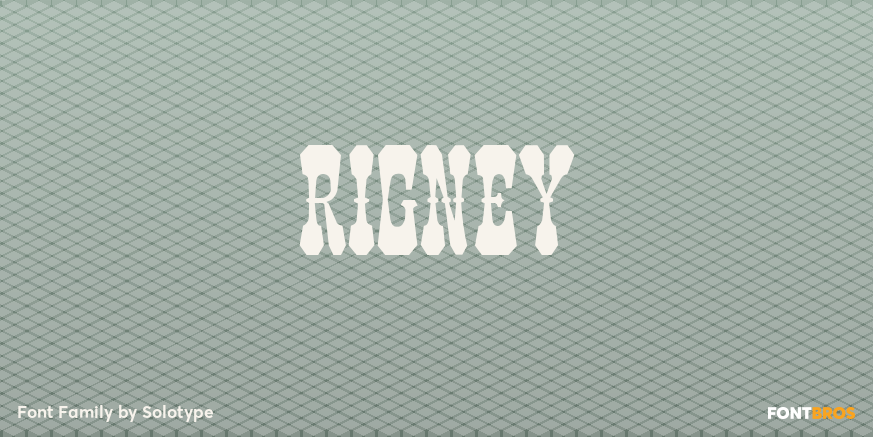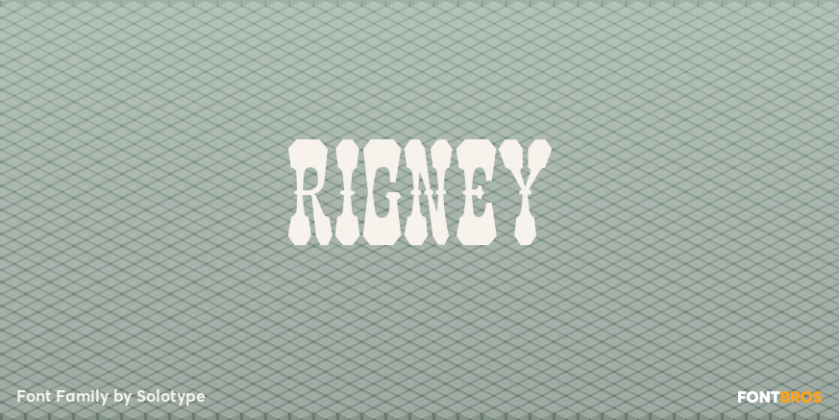
About Rigney
Bill Rigney, an old job printer in my home town, established his shop in 1896, closed it in 1900 to take a steady job, stored the equipment in a large shed, and reopened for business upon his retirement in 1950. What a find! A bonanza of old type! We…